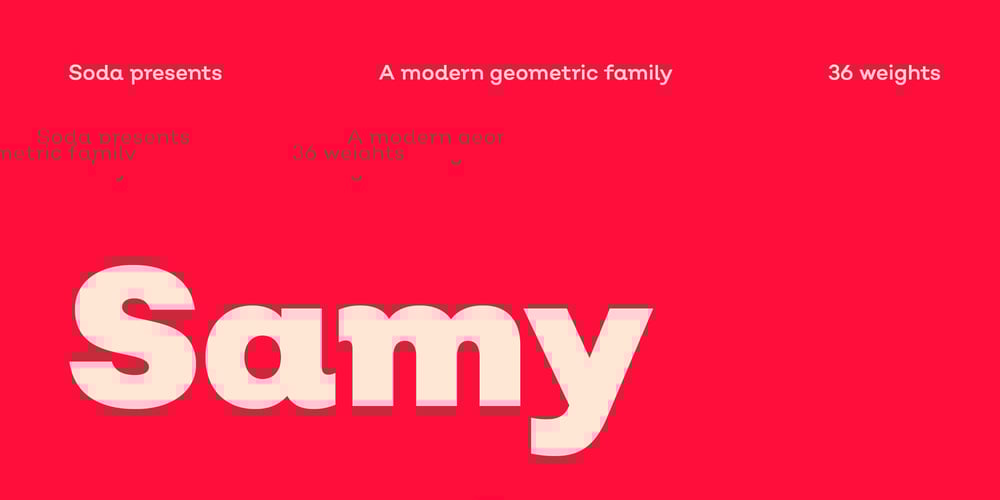
Samy Font Family was designed by Salvador Rodríguez Lagos and published by Soda. Samy contains 36 styles and family package options. Samy is pure warm in a rational world. Yet its features cover uses of any kind.From very thin to chubby weights, this typeface offers a wide range of styles.This work is composed of two subfamilies: Samy, which gives a more conventional font looking, and the Alt version, conveying more fun and joy.